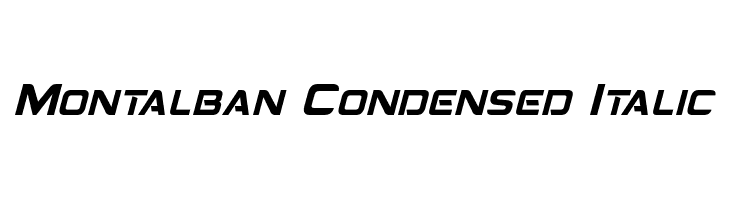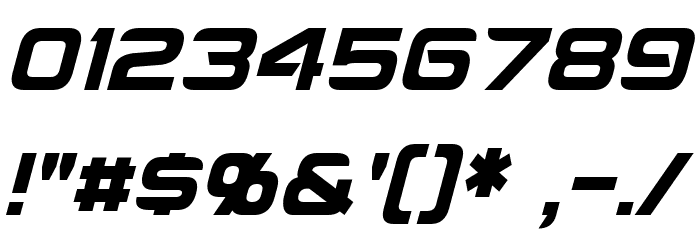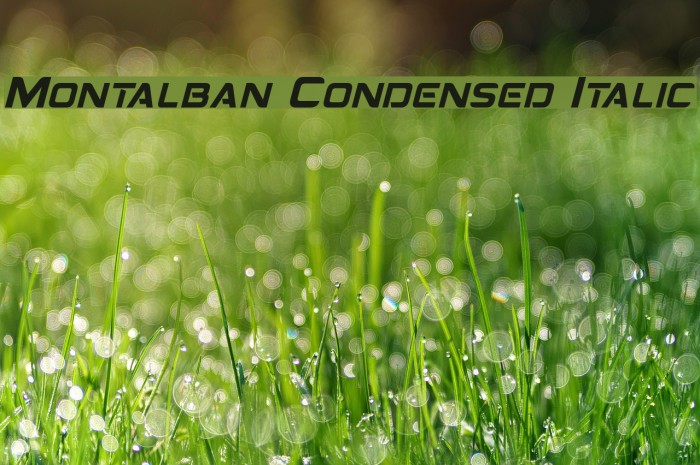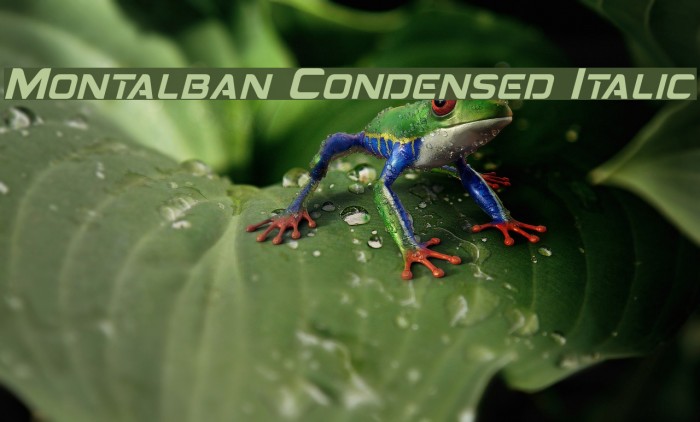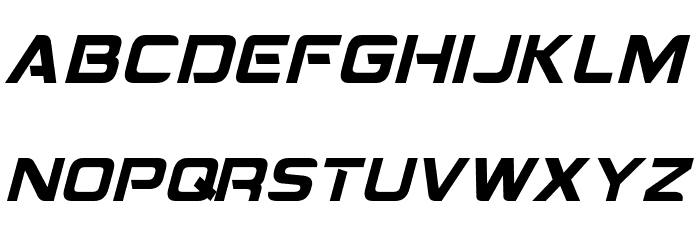
Montalban Condensed Italic Font
This font features a sleek and modern design with a condensed and italicized style. The characters are slightly slanted, giving a sense of motion and dynamism. The strokes are consistent in thickness, providing a uniform appearance across all letters and numbers. The font maintains a clean and professional look, suitable for various applications. The special characters are well-integrated, maintaining the overall aesthetic of the font. Its condensed nature allows for efficient use of space, making it ideal for headlines and titles where space is limited.
A sleek, modern, condensed italic font with consistent stroke thickness.
• Proposed Projects: Ideal for branding, advertising, headlines, and modern web design projects.